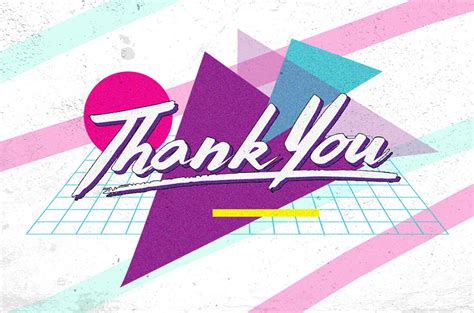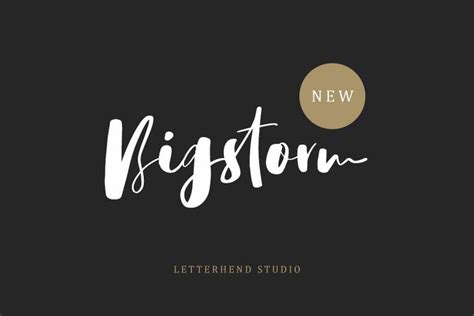
80S Script Font Dafont : Thunderstorm - Kreativ Font : π upload the image and choose what the font you need.. See more ideas about fonts, dafont, free script fonts. I'm looking for the name of the script font used on oldschool caps. The home of free fonts since 1998. Down fonts, free fonts download, calligraphy fonts, tattoo fonts, valentine fonts, fontsdata, blog fonts, dafont top, fontsme Pachom script by faras dina.
In the good old days, i agree it was a script font, very similar to this one, but not this one. Discover the 10 best free fonts on dafont that designers love. See more ideas about fonts, dafont, free script fonts. Discover ffonts.net`s library of over 100,000+ fonts for personal use. Free fonts have met their match. 3,600+ icons, 50+ patched fonts: We know how hard it is to find quality freeware that is licensed for commercial work. Archive of freely downloadable fonts.
Unlimited the best free hand picked fonts. Google fonts now supports variable fonts. We have a huge selection of free fonts for your personal and commercial projects. Script font is a broad style that refers to any typeface that looks like it was drawn by hand. In the good old days, i agree it was a script font, very similar to this one, but not this one. Down fonts, free fonts download, calligraphy fonts, tattoo fonts, valentine fonts, fontsdata, blog fonts, dafont top, fontsme Iconic font aggregator, collection, & patcher. It is a multipurpose typeface which imitates the 80's style of signages. I'm looking for the name of the script font used on oldschool caps. Hastron is a script font with a calligraphy style, that'll look beautiful on invitations, greeting cards, branding materials, business cards. Font awesome, material design icons, octicons use the provided python command line script to generate a patched font from your own font to get the extra new glyphs. Pachom script by faras dina. Can be used in advertising, packaging, poster designs and more.
21 Retro Script Fonts from the 70s, 80s, and 90s — Medialoot from img.glyphs.co
Looking to download stylish fonts for free? Fonts that support the cyrillic language fontspring: Browse by alphabetical listing, by style, by author or by popularity. We have 87 free 1980s fonts to offer for direct downloading · 1001 fonts is your favorite site for free fonts since 2001. I'm looking for the name of the script font used on oldschool caps. Whatthefont uses deep learning to search our collection of over 133,000 font styles and find the best match for the fonts in your photo. Pachom script by faras dina. I thought first of edwardian script since that looks a lot like fancy handwriting but the i am using openoffice to write this document so i might have to install the font onto my computer since i don't have microsoft office(it costs $80 or so to.
700,000 fonts indexed free or commercial.
Dafont free is a collaboration of free high quality fonts including basic, script, handmade, calligraphy, fancy, display, gothic and more. We have a huge selection of free fonts for your personal and commercial projects. Archive of freely downloadable fonts. But sometimes it can be difficult to separate the wheat from the chaff. Looking to download stylish fonts for free? Romantica Γ € by billy argel. Google fonts now supports variable fonts. See more ideas about fonts, dafont, free script fonts. Download thousands of completely legal, high quality, free fonts. Upload an image to whatthefont to find the closest matches in our database. Browse thousands of free fonts to download from a unique collection of the best and new typefaces. 3,600+ icons, 50+ patched fonts: Latin script (free fonts) latin script (handwritten fonts) turkish fonts at fontlibrary.